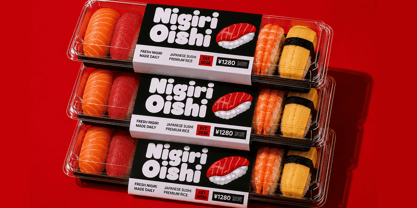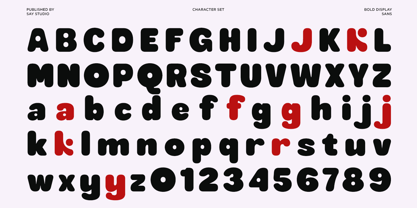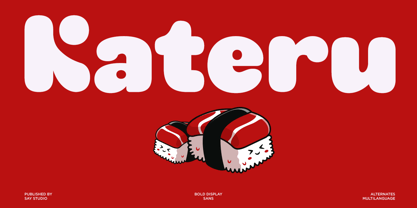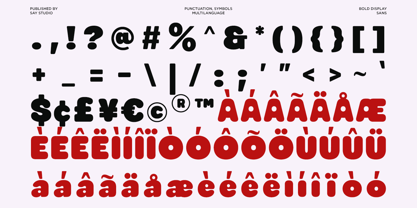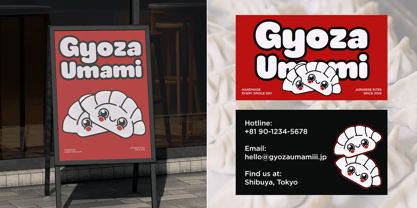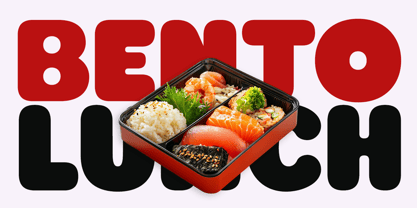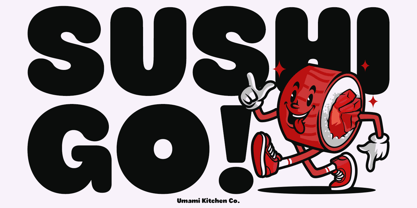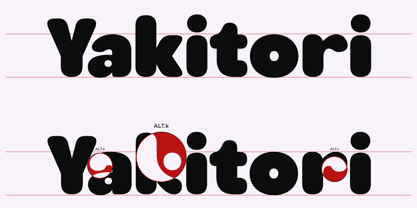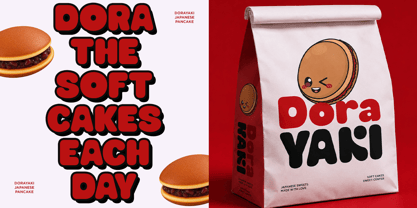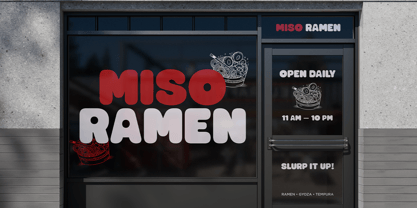
Kateru
Kateru is a bold and playful display font designed to bring a fun, friendly, and delicious personality to your visual projects. Featuring chunky rounded shapes, soft curves, and an expressive character, Kateru creates an instantly recognizable look that works beautifully for food and lifestyle branding.
Inspired by the energetic visual language of Japanese food culture, Kateru is perfect for ramen shops, sushi restaurants, Japanese cafés, bakery brands, snack packaging, food labels, menus, posters, and promotional campaigns. Its bold silhouette remains highly visible across both large headlines and compact branding applications.
Kateru is also a versatile choice for packaging design, logos, merchandise, social media graphics, stickers, children's products, mascot branding, and playful editorial layouts. Whether you are creating a Japanese-inspired food identity or a colorful contemporary brand, Kateru adds a warm, cheerful, and memorable visual personality to your design.
• Regular and Italic
• Stylistic Alternates
• Uppercase and Lowercase
• Number, Symbol, and Punctuation
• Multilingual Support